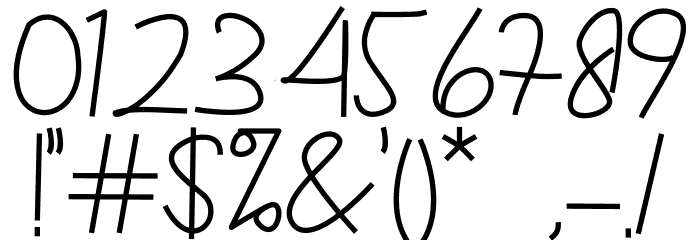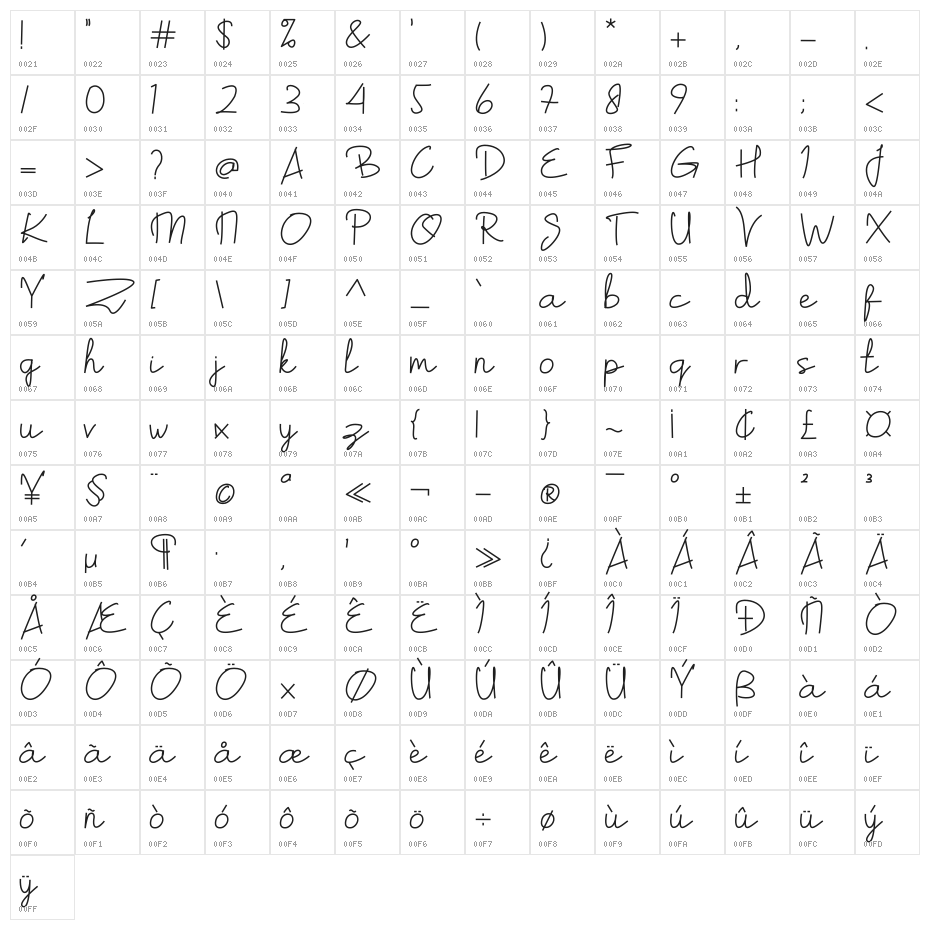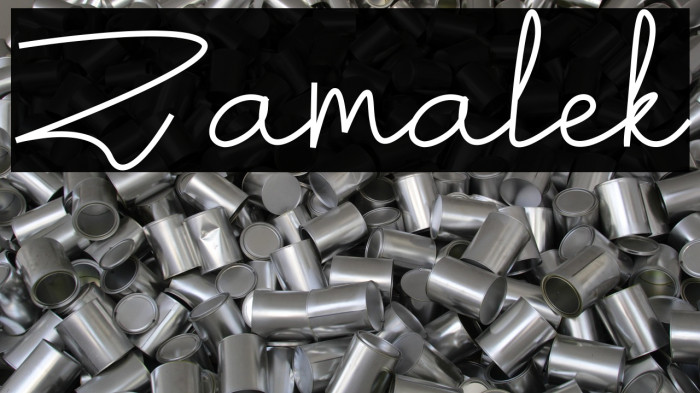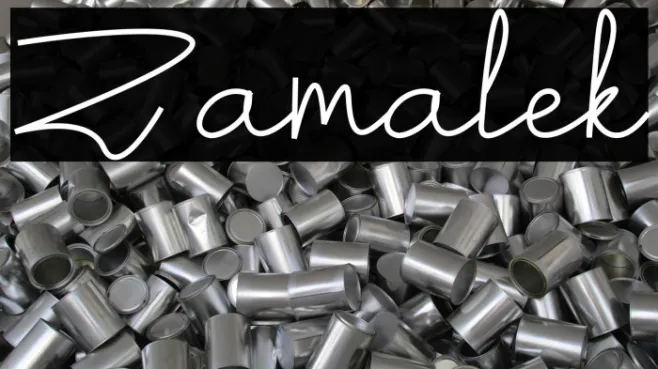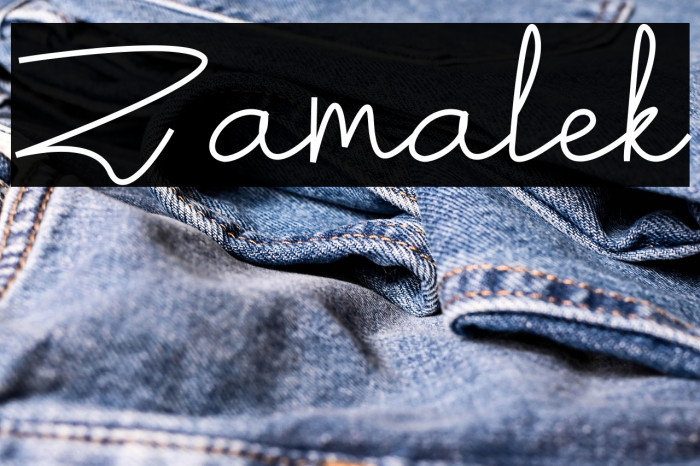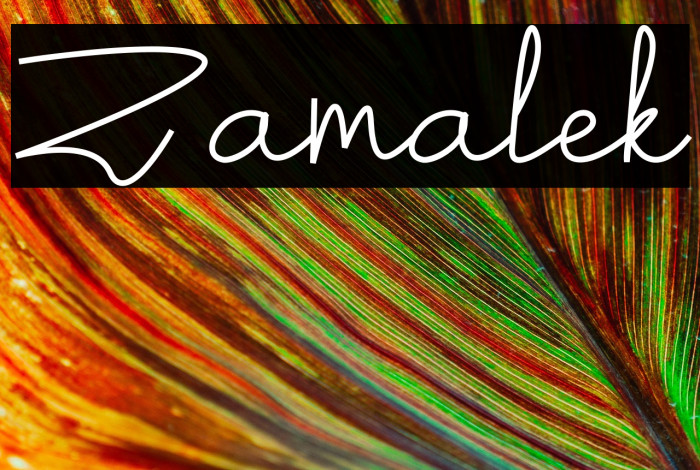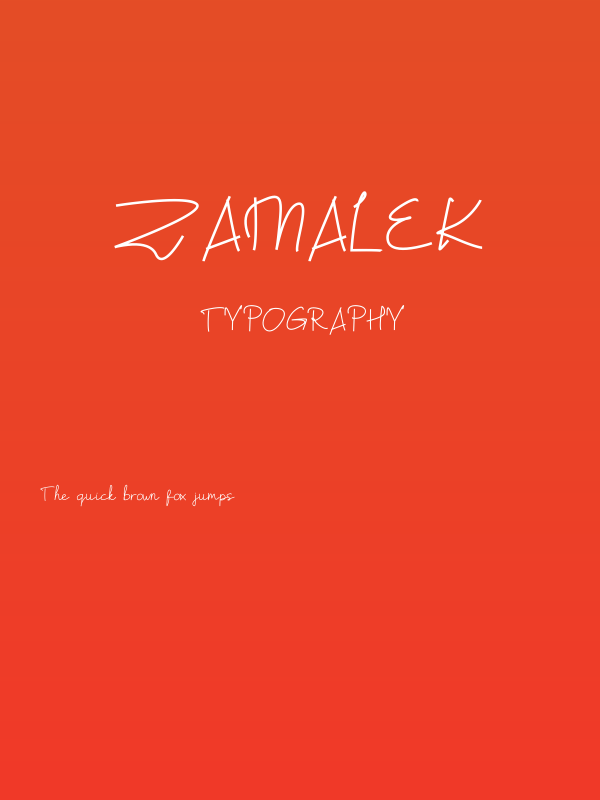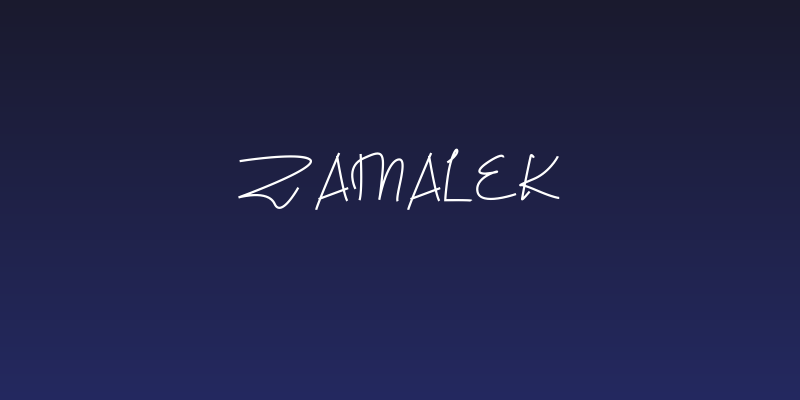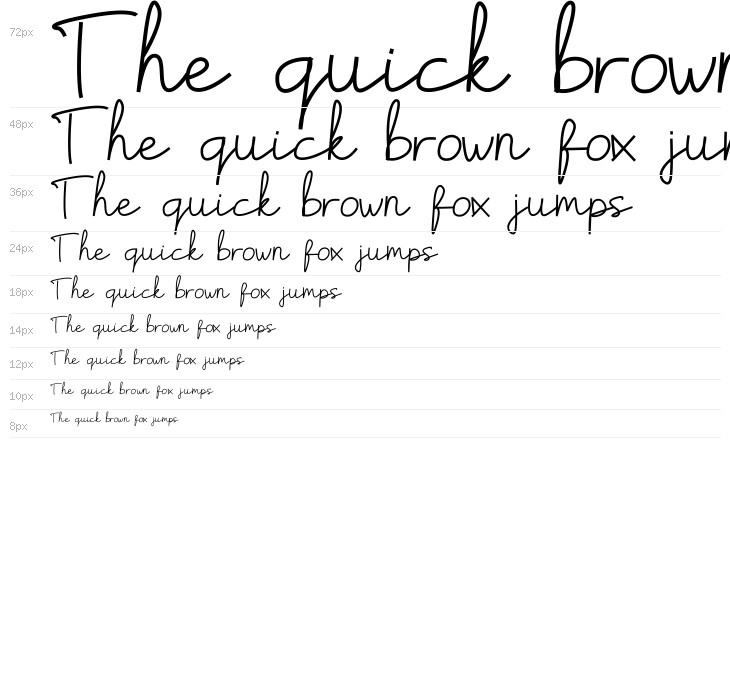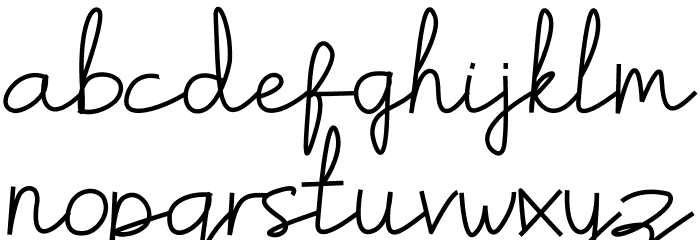
Zamalek Font
Zamalek Description
This font features a playful and casual handwritten style, characterized by its fluid and slightly irregular strokes. The uppercase letters are tall and narrow, with a whimsical touch that adds personality. The lowercase letters maintain a consistent flow, enhancing the handwritten feel. Numbers and special characters are crafted with the same playful spirit, making them suitable for informal and creative projects. The font's overall appearance is friendly and approachable, perfect for adding a personal touch to any design.
| Proposed Projects | Ideal for greeting cards, invitations, personal branding, and creative projects that require a casual and friendly tone. |